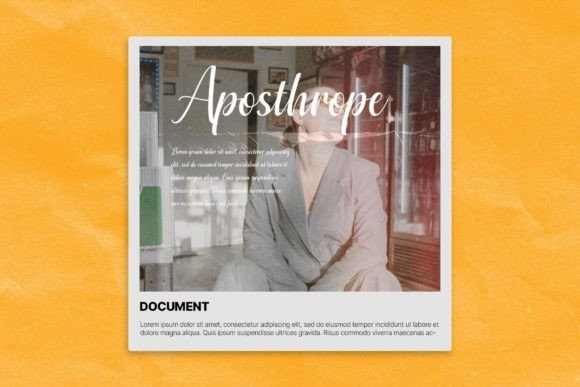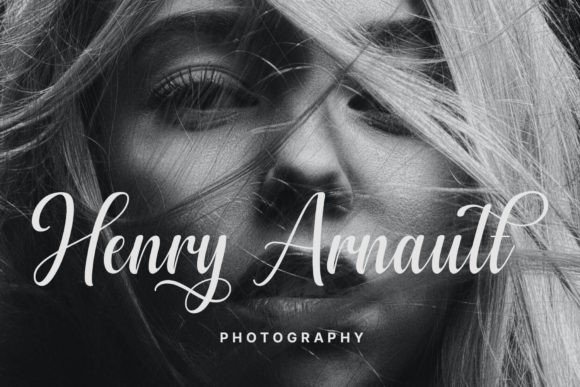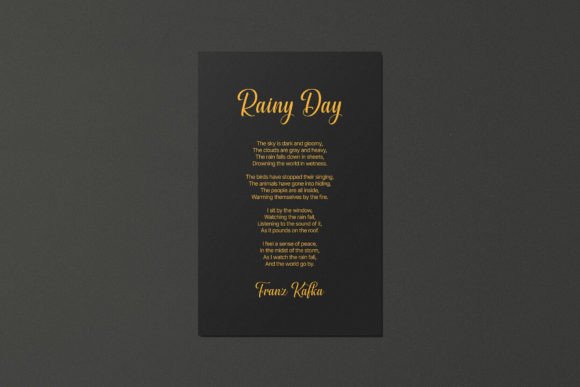
Introduction to Mickey Carley Font
Imagine you’re brainstorming ideas for a creative project, and suddenly, the perfect font strikes your mind. You envision the elegant strokes, the fluid curves, and the whimsical charm that will bring your design to life. This is the moment when you stumble upon the perfect font – the Mickey Carley Font. This beautifully crafted handwritten script font is a game-changer for designers seeking to elevate their projects with a touch of sophistication and personality.
With its high-quality design and free download option, Mickey Carley Font has become a sought-after design resource for creatives. Its versatility is unmatched, allowing designers to tailor their text with ligatures and alternates, making every word a work of art. Whether you’re crafting invitations, designing logos, or adding a dash of creativity to your social media posts, Mickey Carley Font is your ultimate companion. Its transparent background makes it easy to integrate into any design, leaving a lasting impression on your audience.
Mickey Carley Font
- High-quality, hand-drawn design with a unique, playful feel.
- Perfect for use in children’s books, educational materials, and other creative projects where a fun and playful font is desired.
Honest Review: Mickey Carley Font
I recently stumbled upon the Mickey Carley Font, and I must say it’s a high-quality design resource that can elevate any creative project. With a free download available, it’s a great asset for designers on a budget or those looking to experiment with new fonts.
- The Mickey Carley Font has a unique and modern aesthetic that’s perfect for creating eye-catching designs.
- The font is highly versatile and can be used for a wide range of creative projects, from logos to headings and body text.
- The Mickey Carley Font may not be suitable for projects that require a more traditional or classic font style.
- Some users may find the font’s unique design to be too bold or overpowering in certain contexts.
Overall, I’m impressed with the Mickey Carley Font’s high quality and design versatility. While it may not be for everyone, it’s a great addition to any designer’s toolkit and can help take creative projects to the next level.
Mickey Carley Font
The Mickey Carley Font is a versatile and high-quality design resource perfect for creative projects. It’s available for free download, making it an excellent addition to any design toolkit.
Tips for Getting the Most Out of Mickey Carley Font
To get the most out of the Mickey Carley Font, use it on designs with a transparent background for a clean and modern look. Experiment with different font sizes and combinations to create unique and eye-catching designs.
Common Use Cases for Mickey Carley Font
The Mickey Carley Font is commonly used in logo design, branding, and graphic design. Its versatility and high-quality make it an excellent choice for a wide range of creative projects.